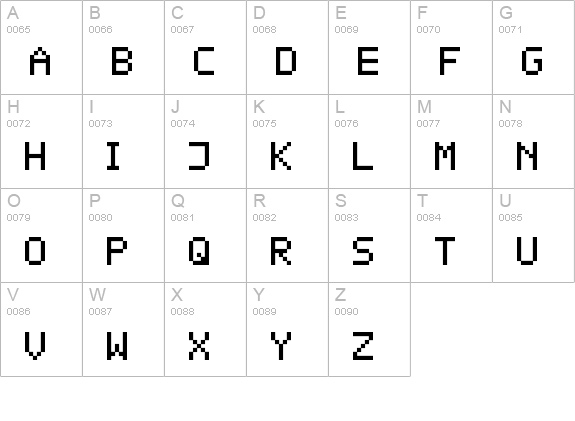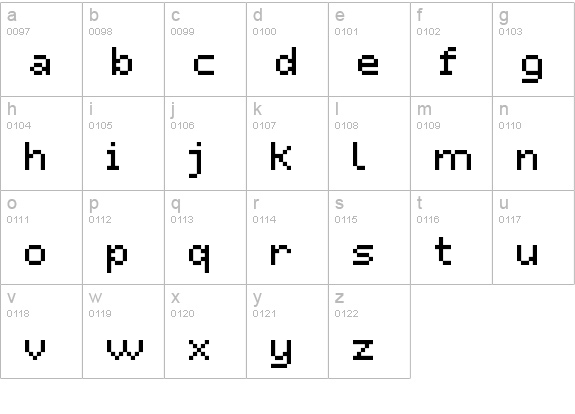
DS SysBit font is a modern and sleek typeface that exudes a sense of sophistication and professionalism. With its clean lines and sharp angles, this font is perfect for creating a contemporary and stylish look in your designs. Whether you are working on a website, a branding project, or any other creative endeavor, DS SysBit font will add a touch of elegance and flair. One of the best things about DS SysBit font is that it is completely free to download. You can easily access this versatile font at FontsMarket.com, where you can find a wide range of high-quality fonts for all your design needs. Don't miss out on the opportunity to enhance your projects with the unique and eye-catching DS SysBit font – download it today and take your designs to the next level!